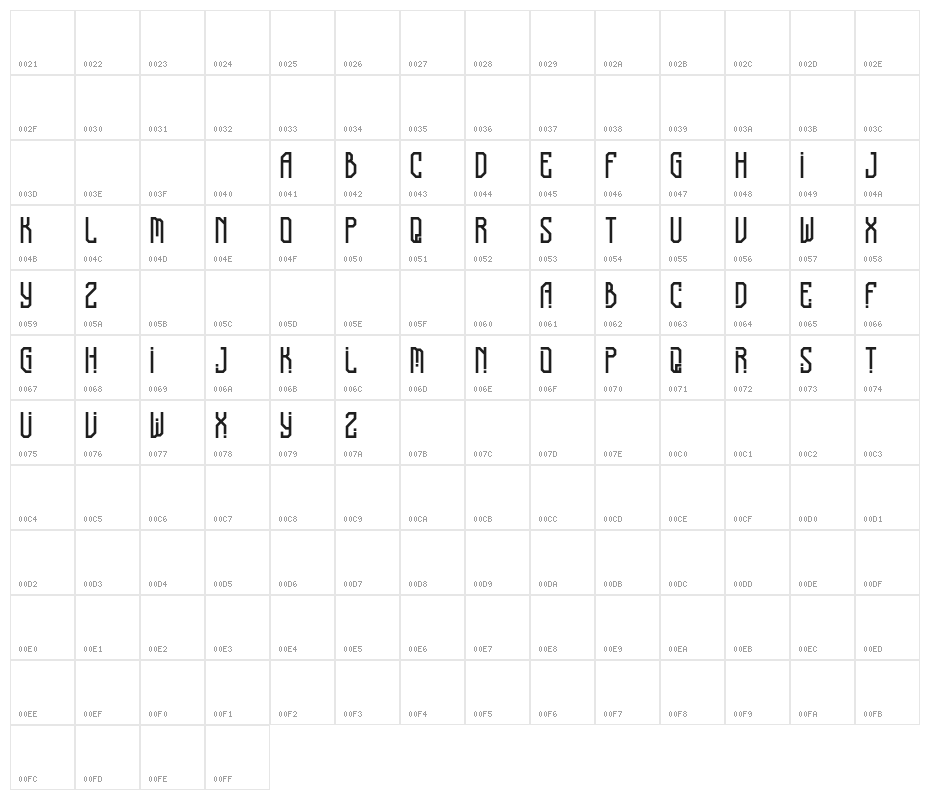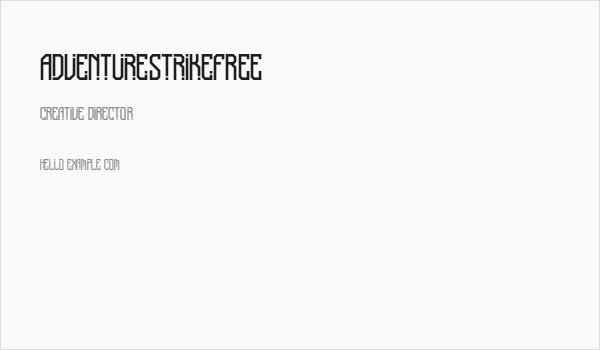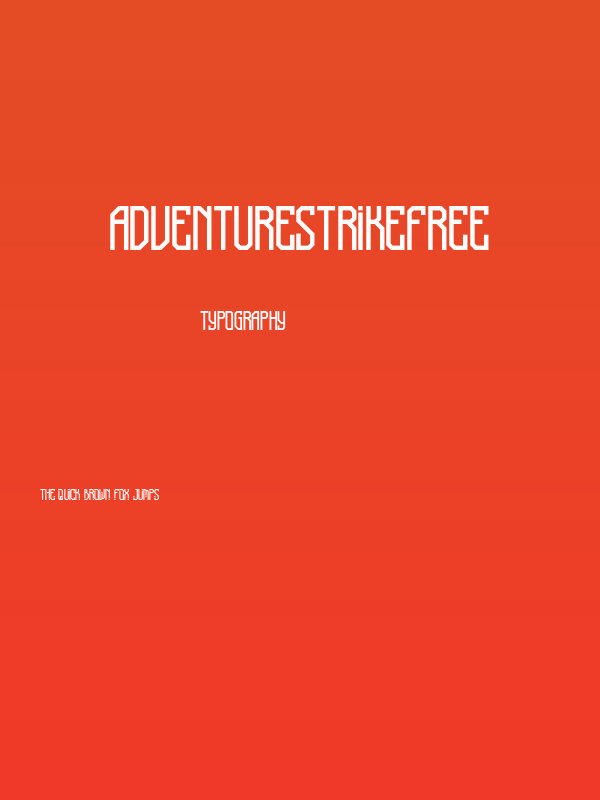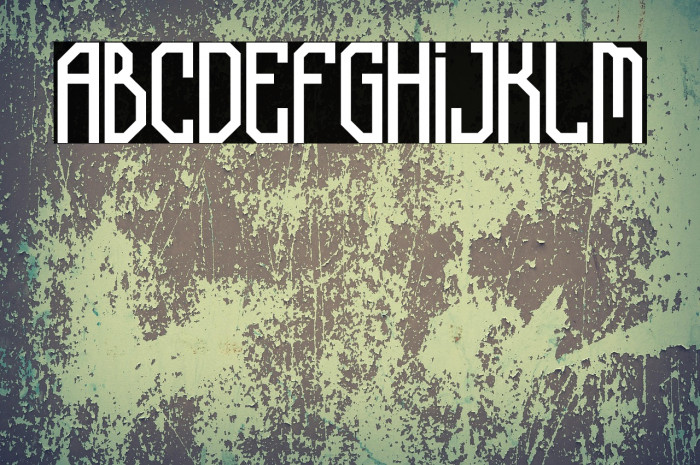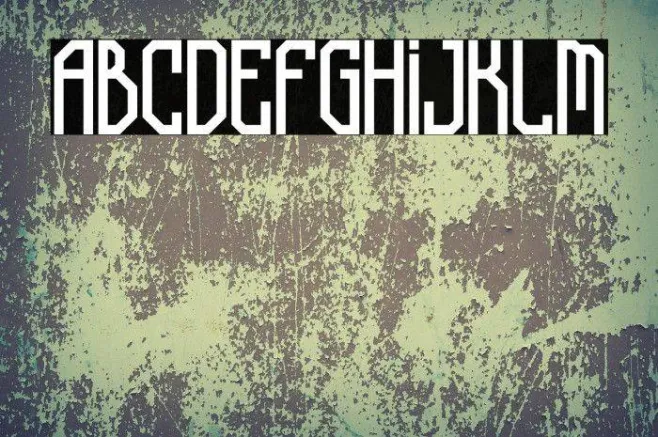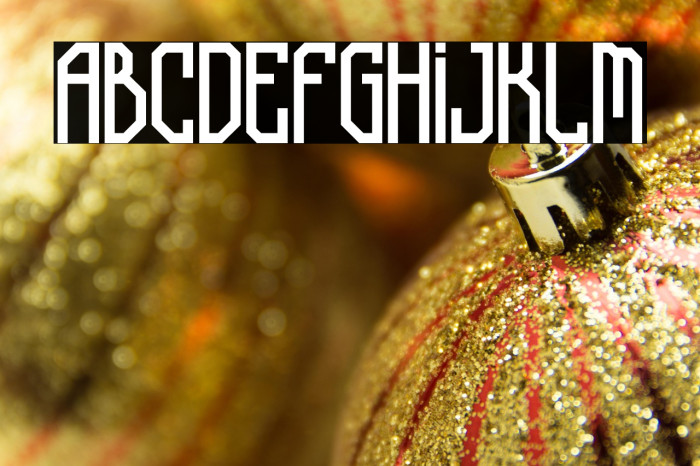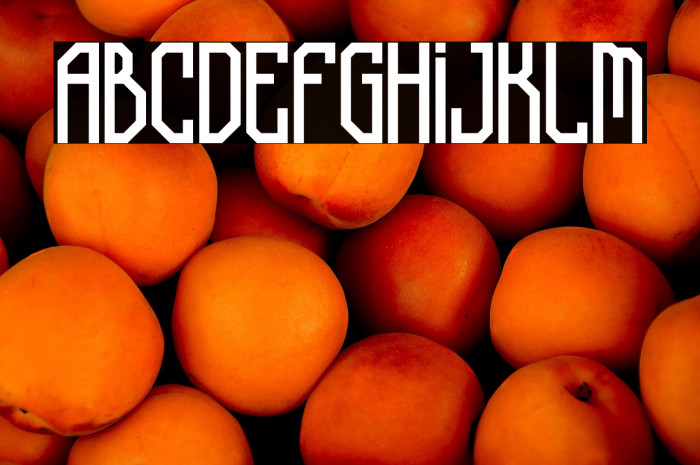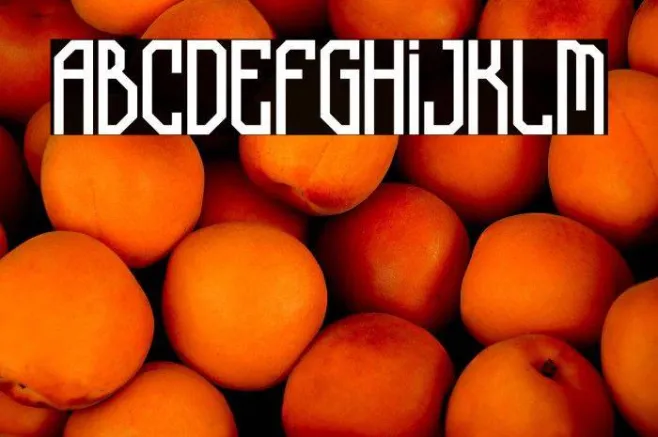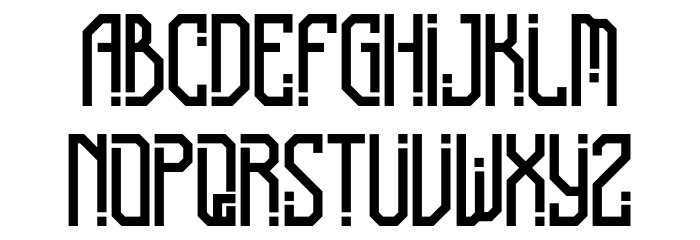
AdventureStrikeFREE Font
AdventureStrikeFREE Description
This font features a bold, geometric design with a futuristic and adventurous flair. The uppercase letters are constructed with sharp angles and straight lines, creating a sense of movement and energy. The characters have a consistent height and width, giving them a uniform appearance. The font's unique style is characterized by its angular cuts and minimalistic approach, making it stand out in any design. The absence of curves and the presence of sharp edges contribute to its modern and edgy look. This font is ideal for projects that require a strong visual impact and a contemporary aesthetic.
| Proposed Projects | Ideal for video game titles, movie posters, tech branding, and adventure-themed designs. |